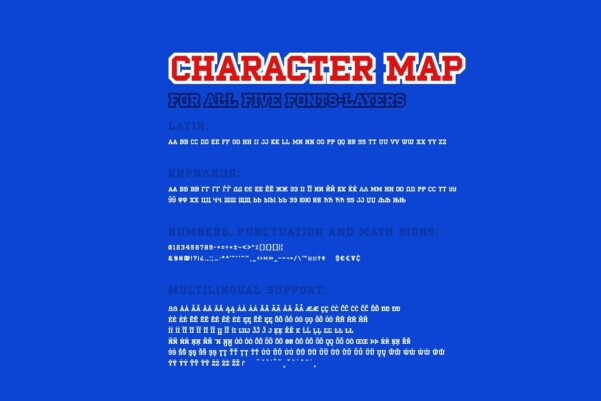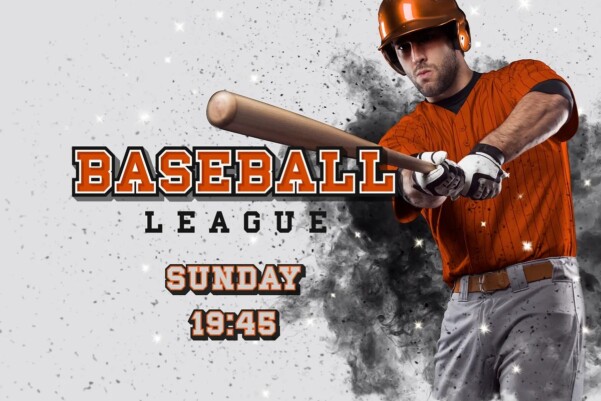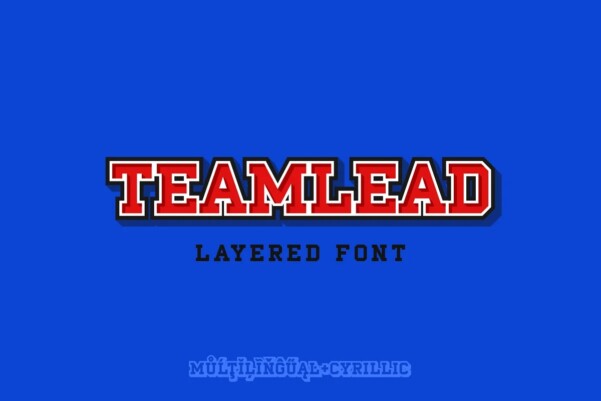
TeamLead Font
TeamLead Font is an authentic sports branding font of Five Layers. It is perfect for sports logos, posters, apparel design, labels and much more.